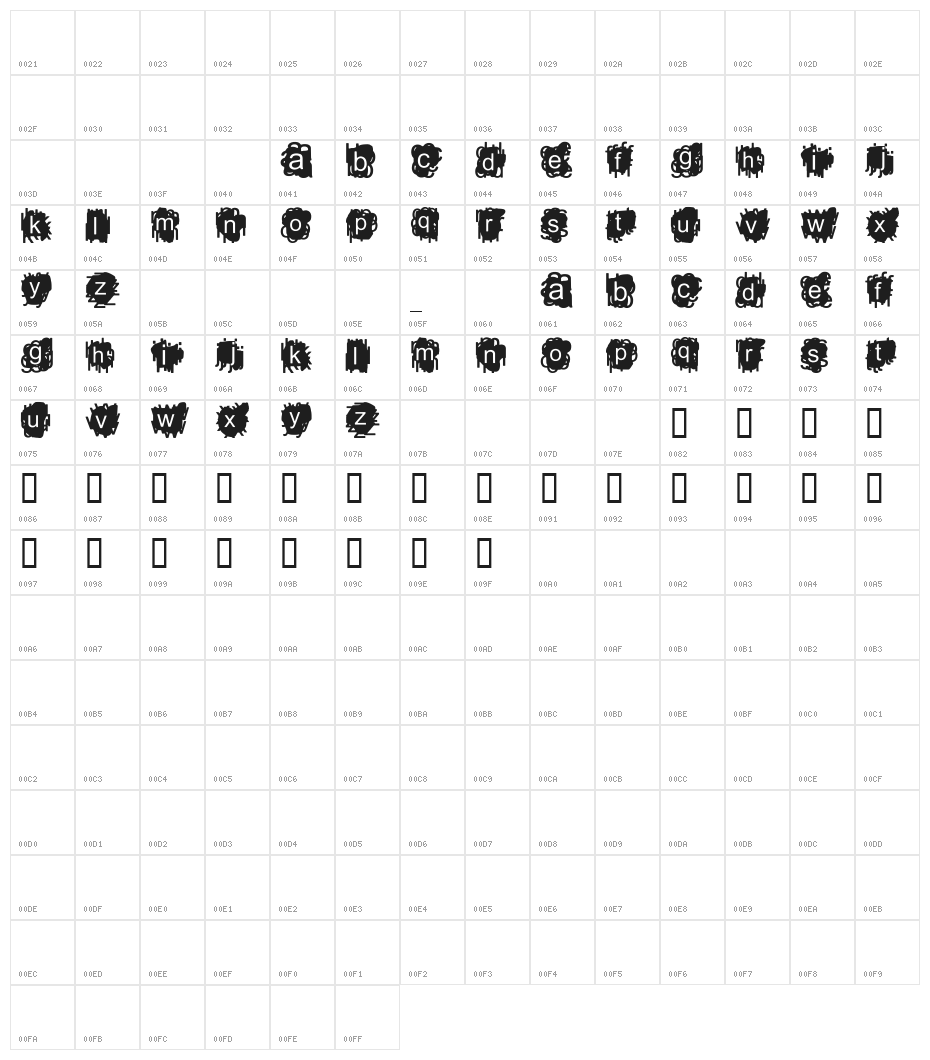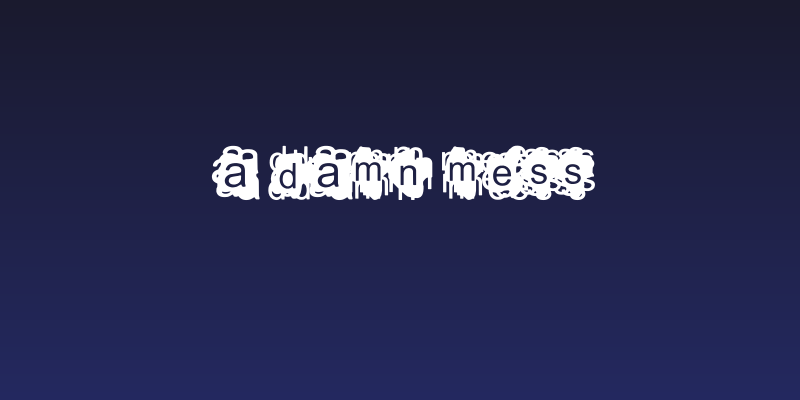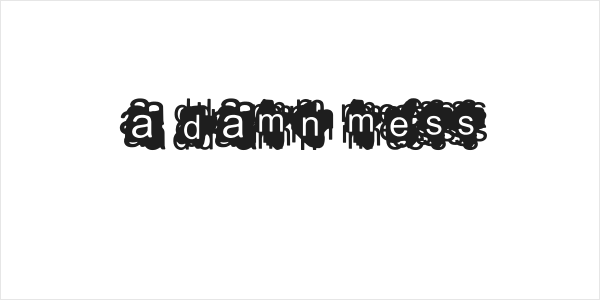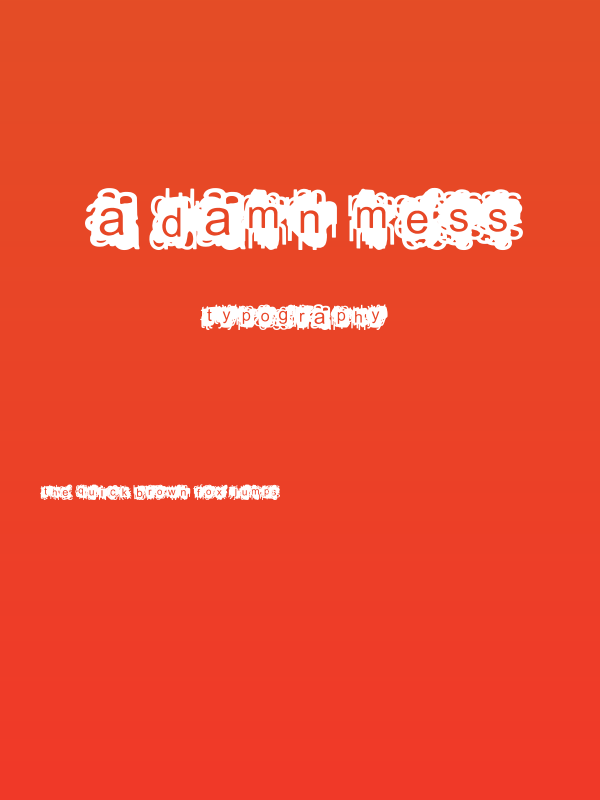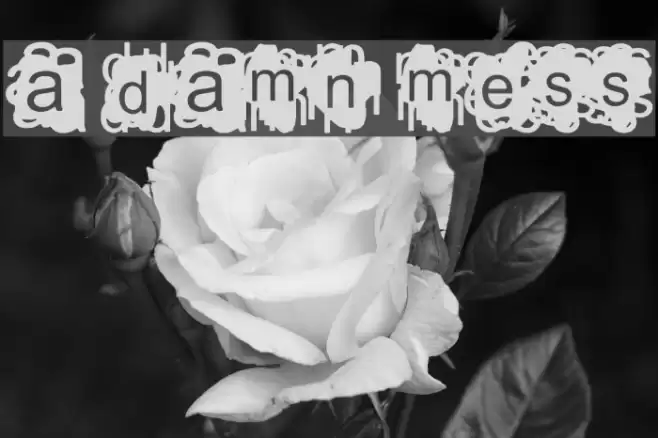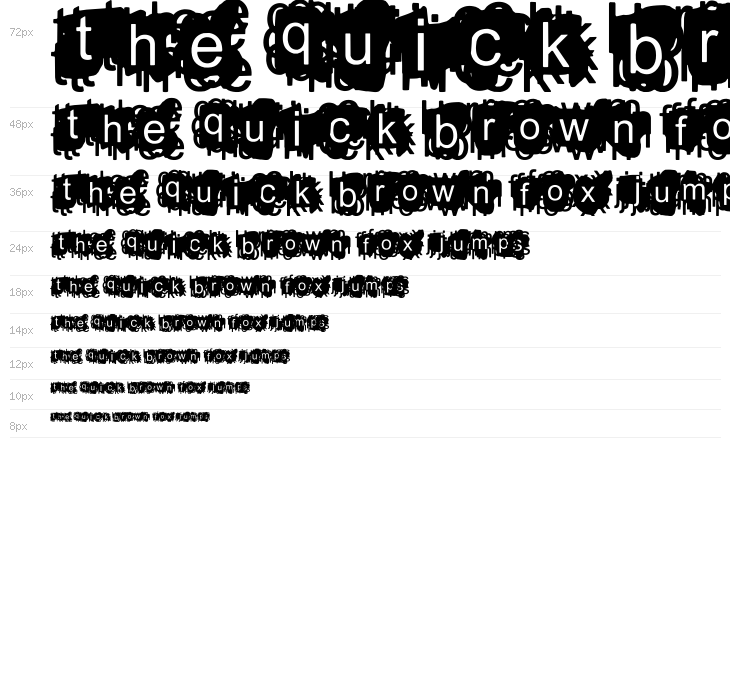
A Damn Mess Font
| Style général | Abstract, Chaotic |
| Cas d'utilisation | Artistic displays, Experimental design |
| Projets proposés | Ideal for abstract art projects, experimental graphic design, or any creative work that embraces chaos and visual complexity. |